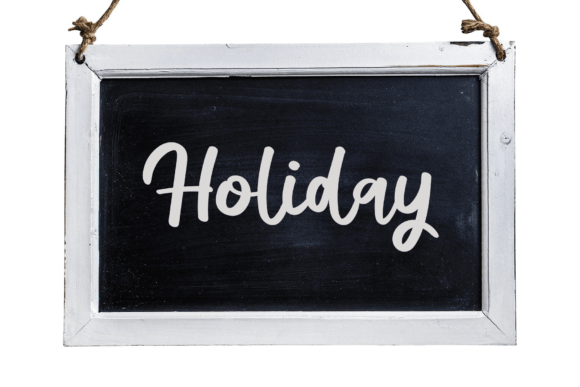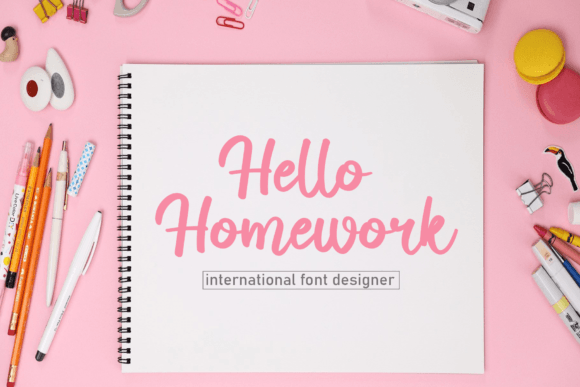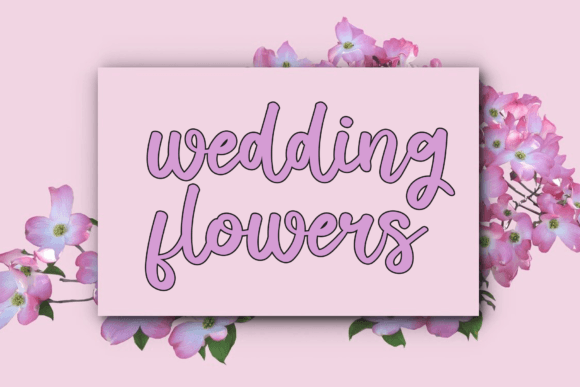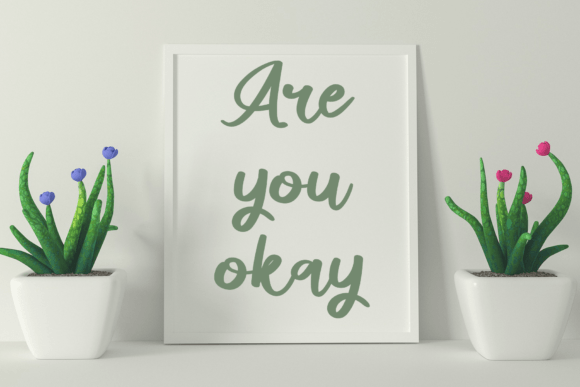
Disnay Summer Font
About Disnay Summer Font
“Disney Summer” is a handwritten typeface that embodies delicacy, grace, and a flowing aesthetic. This font boasts lovely and well-balanced qualities, making it a versatile choice that seamlessly fits within a wide range of styles. Add “Disney Summer” to your most imaginative thoughts, and watch as it brings your creative ideas to life with its charming and expressive nature.
The delicate strokes of “Disney Summer” create an atmosphere of sophistication, making it suitable for various design applications. Its graceful qualities make it an ideal choice for expressing creativity in a range of styles, from playful to formal.
Imagine “Disney Summer” enhancing your projects, whether they be invitations, creative endeavors, or branding materials. Its well-balanced characteristics ensure a harmonious blend with different design elements, making it a reliable and adaptable typeface for bringing your imaginative thoughts to fruition.
In essence, “Disney Summer” is more than just a font; it’s a design tool that adds a touch of delicacy and grace to your projects. Let “Disney Summer” be the expressive force that transforms your creative ideas into captivating visual experiences.